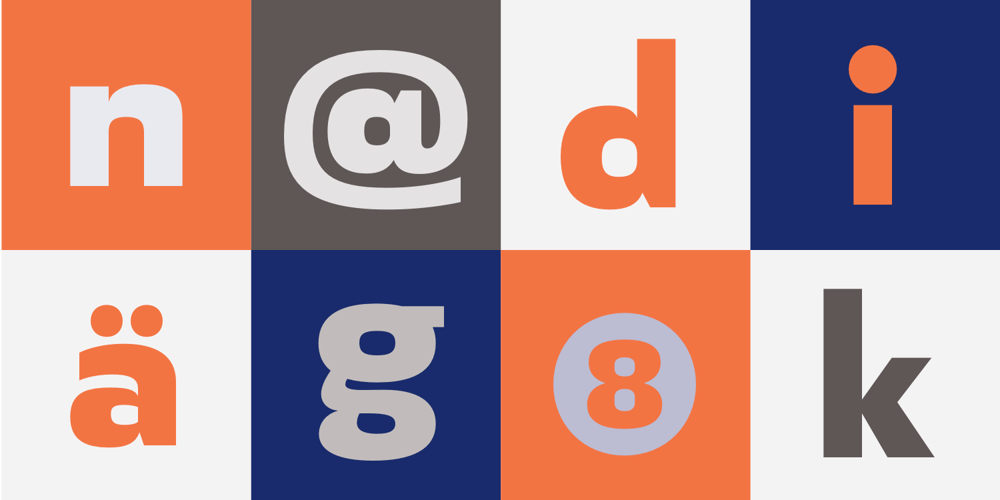
JAF Peacock
JAF Peacock font
JAF Peacock Font Family was designed by Tim Ahrens, Brian Jaramillo and published by Just Another Foundry. JAF Peacock contains 1 styles and family package options. Peacock is a collaboration between Brian Jaramillo and Tim Ahrens. Contextual and stylistic alternates are accessible via the OpenType pop-up menu on the Character palette in InDesign. In addition, any alternate glyphs can be selected manually via the Insert Glyph palette. The typeface features more than 1200 glyphs.